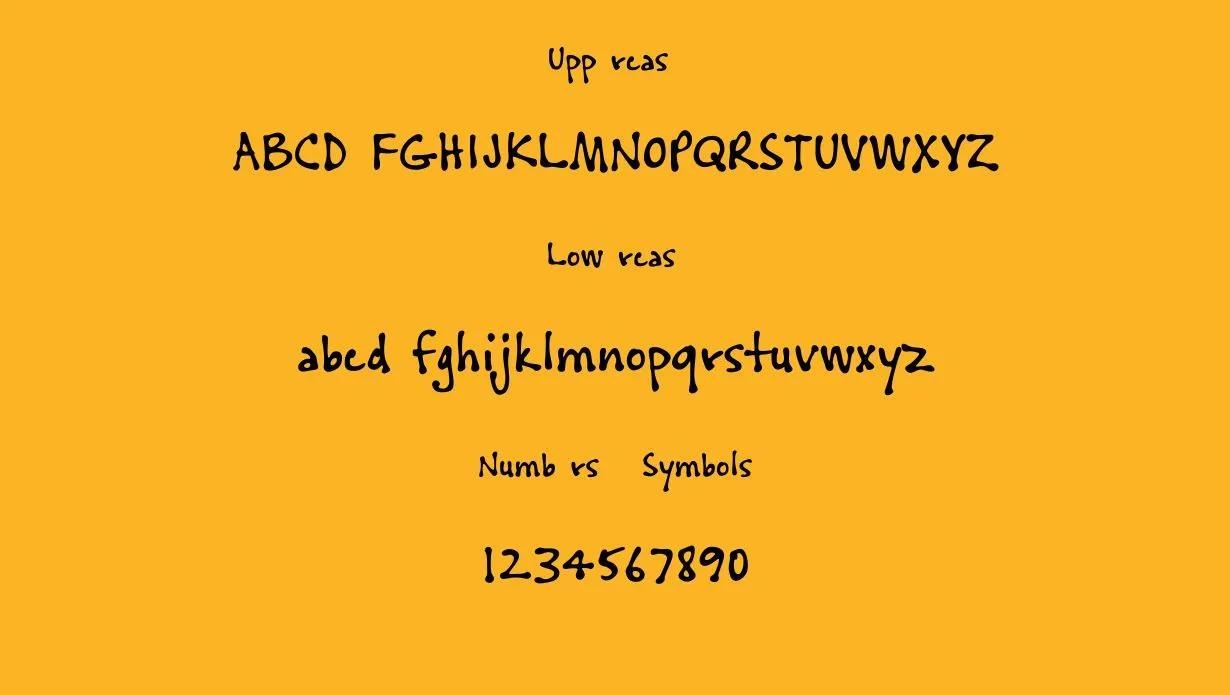
Combining classic elements with a modern twist, the Cedar Street font offers a clean, sophisticated style. Its simple yet refined appearance adds an air of professionalism and elegance to any project.
Whether employed in formal documents, branding materials, or designs that require a polished and timeless aesthetic, this font delivers a sense of timeless sophistication and modern allure.